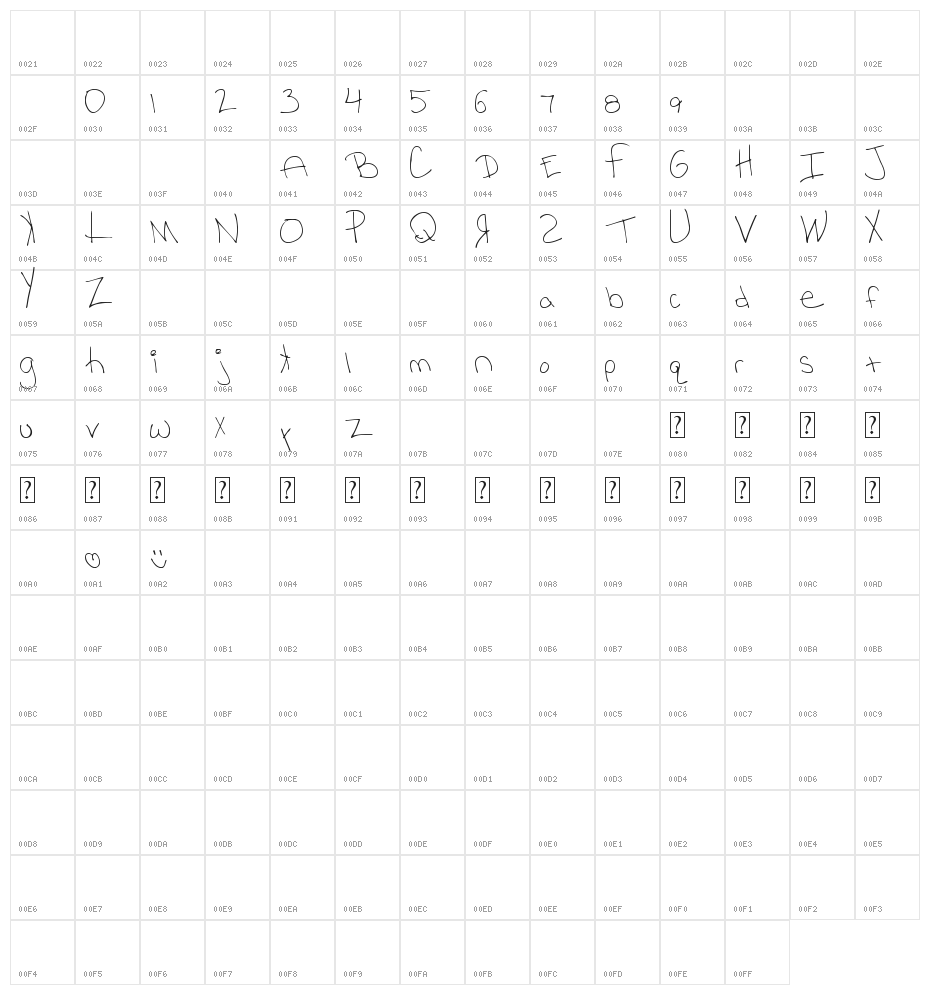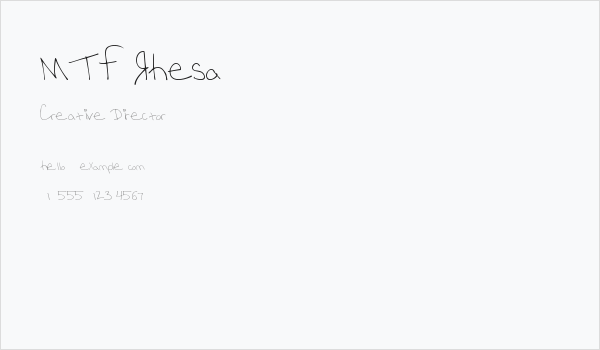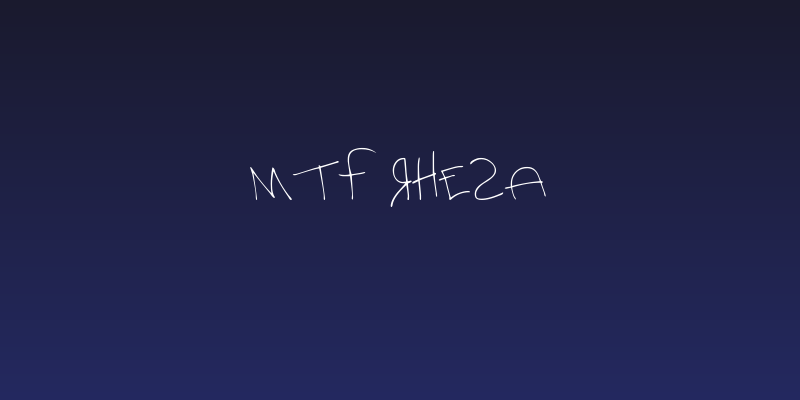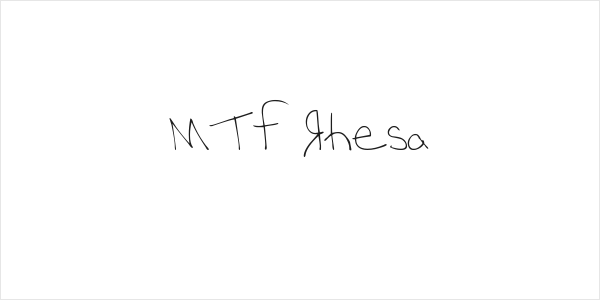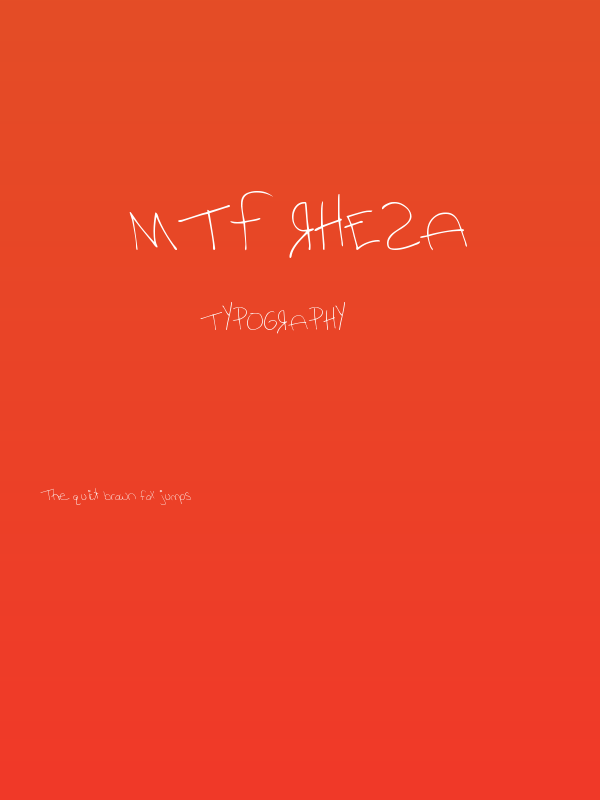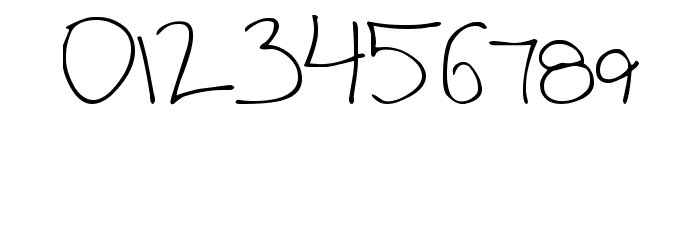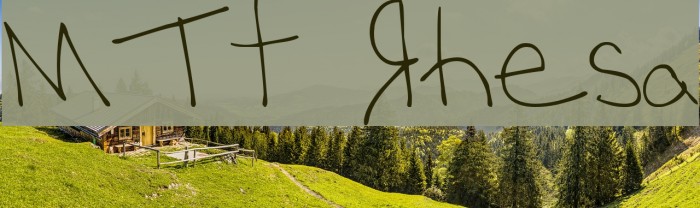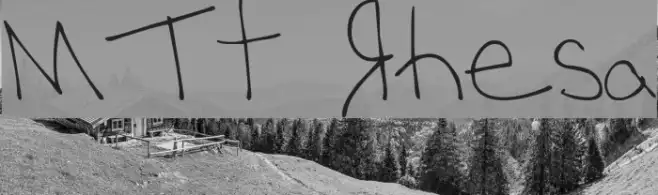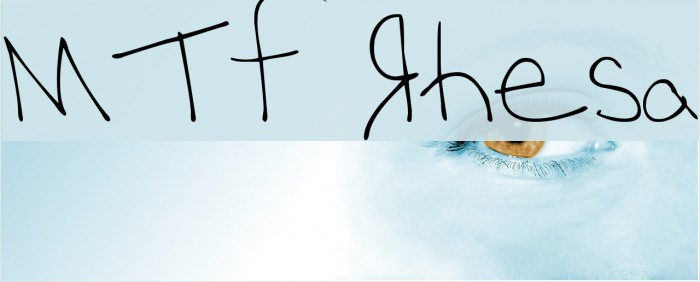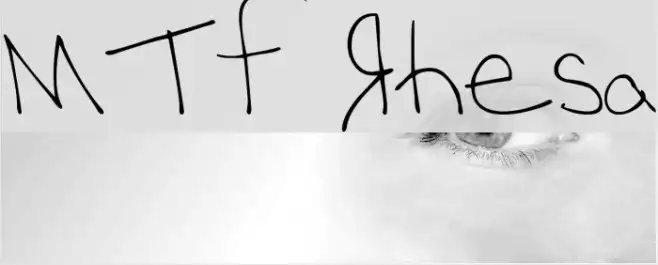
MTF Rhesa Font
MTF Rhesa Description
This font features a playful and casual handwritten style, characterized by its irregular and slightly whimsical letterforms. The strokes are uneven, giving it a natural and spontaneous feel, reminiscent of quick, informal handwriting. The uppercase and lowercase letters maintain a consistent flow, while the numerals and special characters complement the overall aesthetic. The font's unique charm lies in its imperfect lines and quirky character shapes, making it stand out in creative and informal settings.
| Proposed Projects | Ideal for children's books, greeting cards, personal blogs, and creative branding projects. |